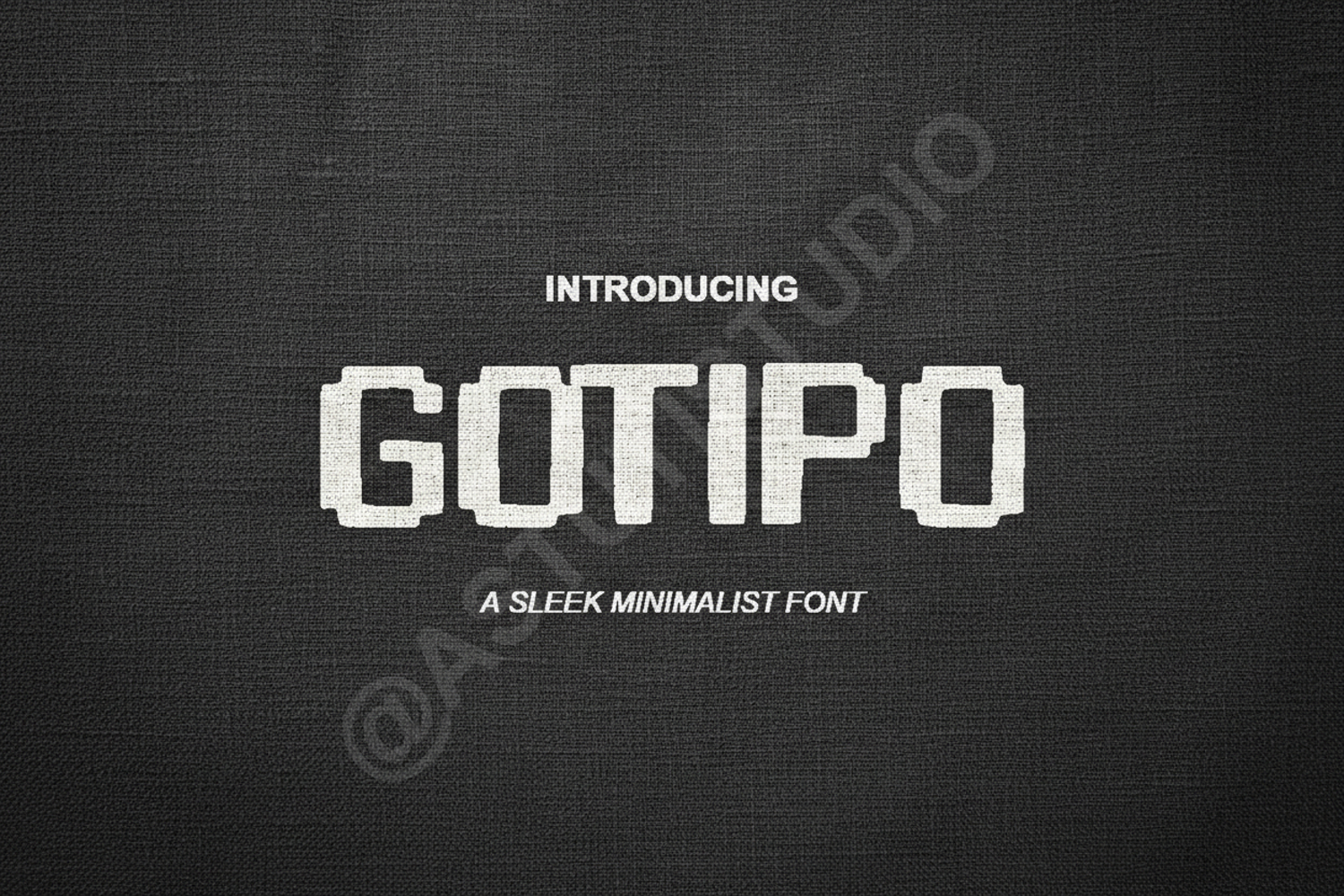
Gotipo - Modern Geometric Sans Serif
Gotipo
Gotipo is a masterfully crafted sans serif typeface that blends geometric precision with modern elegance. Designed for high-end projects, this font offers exceptional legibility and a clean aesthetic that elevates any creative work. Whether you are building a brand from scratch or refining a digital interface, Gotipo provides the professional edge your designs deserve.
- Professional Branding and Identity Systems
- Minimalist Logo Design and Wordmarks
- High-End Editorial Layouts and Magazines
- Modern Website UI and UX Design
- Social Media Graphics and Marketing Materials